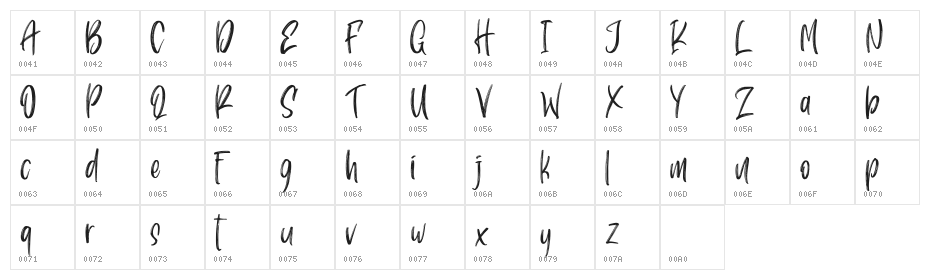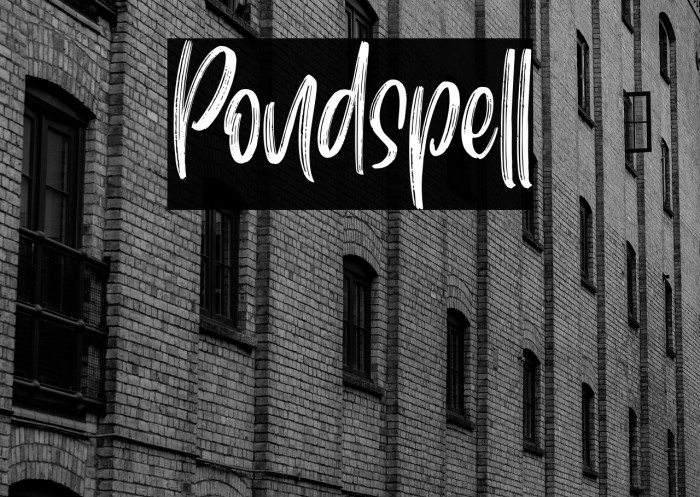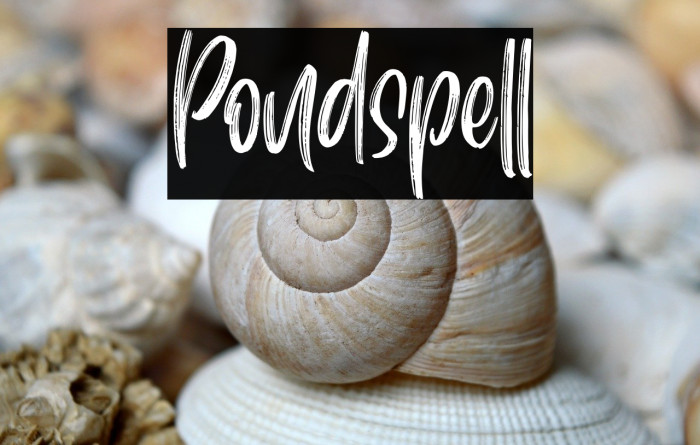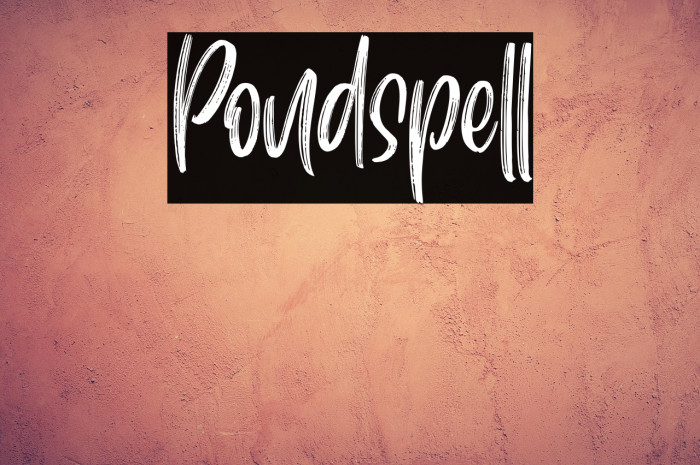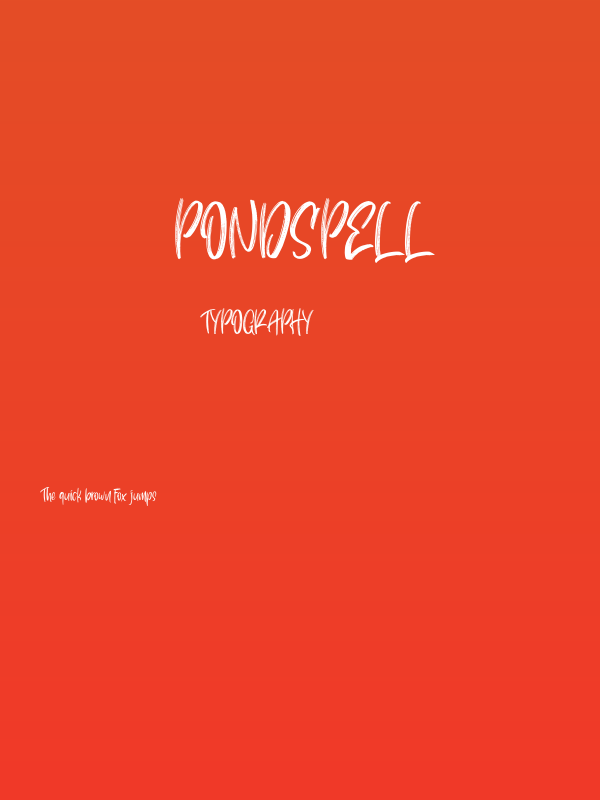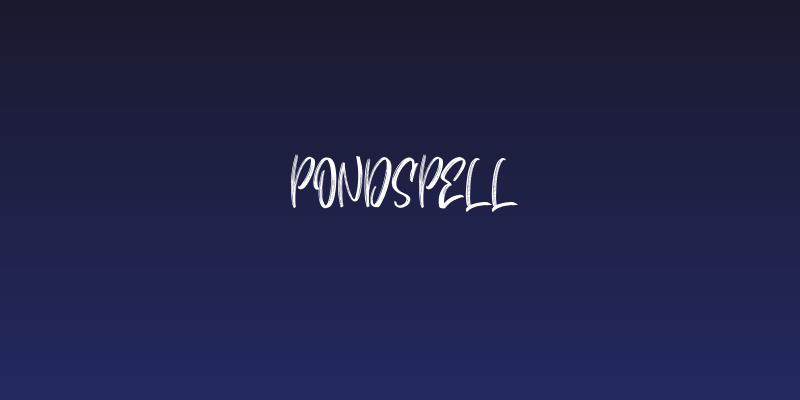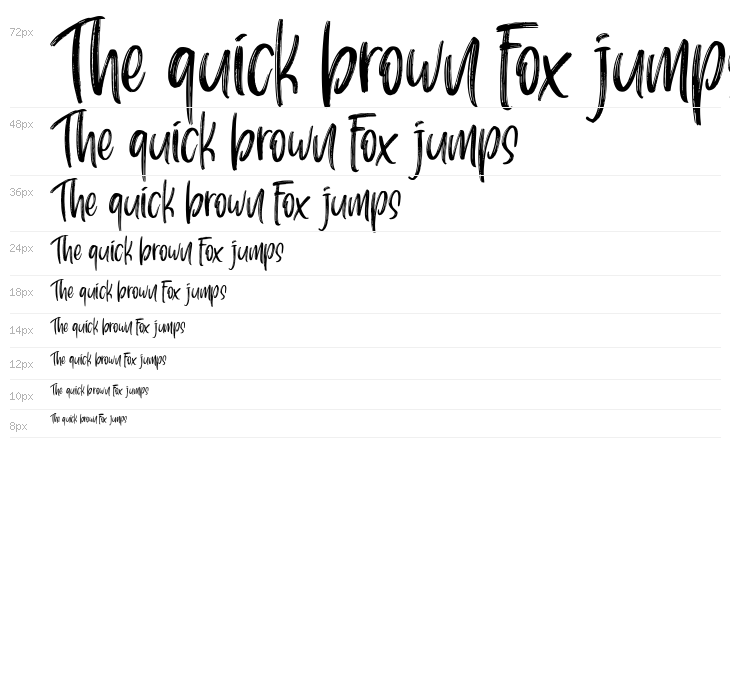
Pondspell Font
Pondspell Description
A bold, brush-style handwritten font with a dynamic and energetic appearance, featuring irregular strokes and a casual, artistic vibe.
| Proposed Projects | Posters, branding, social media graphics. |